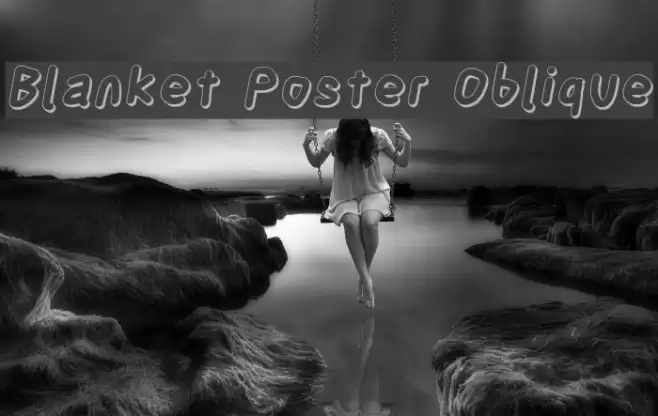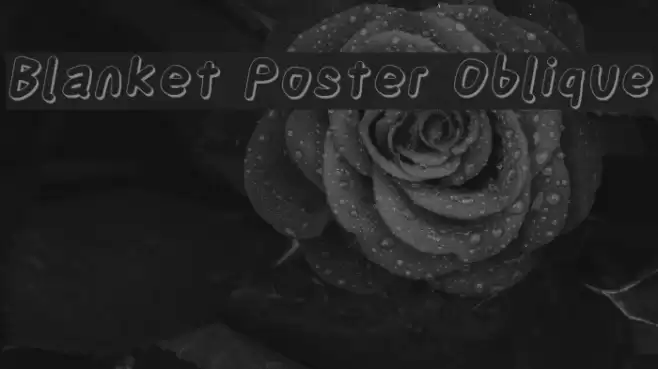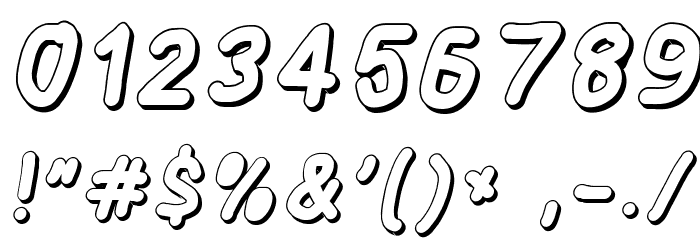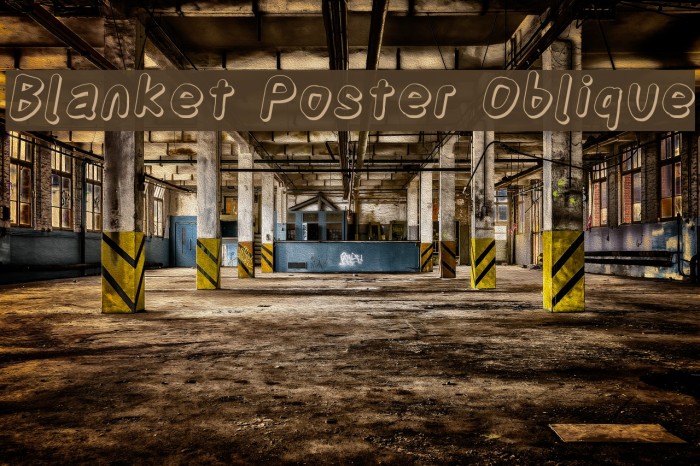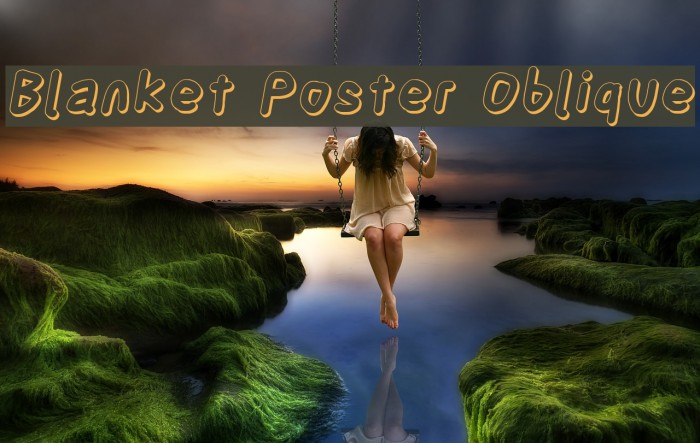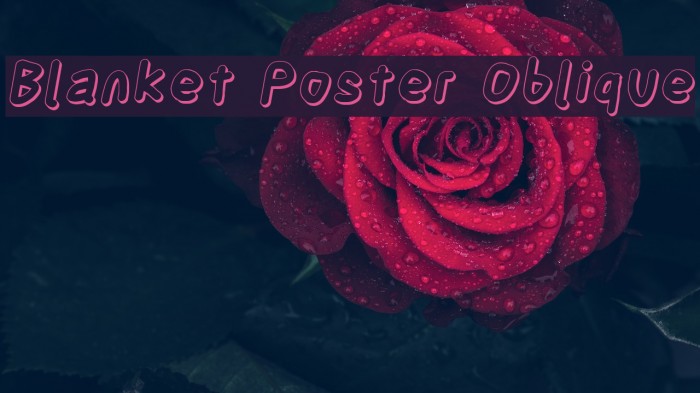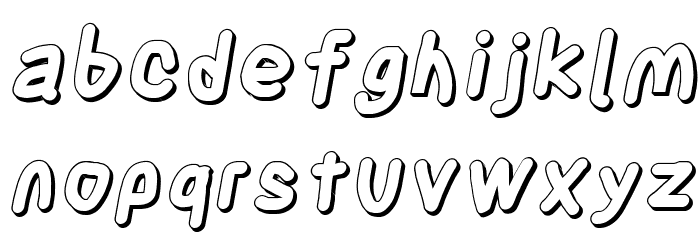
Blanket Poster Oblique Font
Blanket Poster Oblique Description
This playful and bold font features a unique oblique style with a thick outline that gives it a three-dimensional appearance. The characters are rounded and slightly inflated, creating a fun and approachable look. The uppercase and lowercase letters maintain a consistent style, with smooth curves and a slight slant to the right. The numbers and special characters follow the same design principles, ensuring uniformity across all elements. This font's distinct style makes it suitable for projects that require a lively and energetic feel.
A playful, bold oblique font with a thick outline and rounded, inflated characters from Uncategorized fonts.
- Proposed Projects: Ideal for children's book covers, playful posters, party invitations, and branding for fun-oriented products.
- Overall Style: Playful, Fun, Energetic
- Use Case: Headlines, Posters, Branding